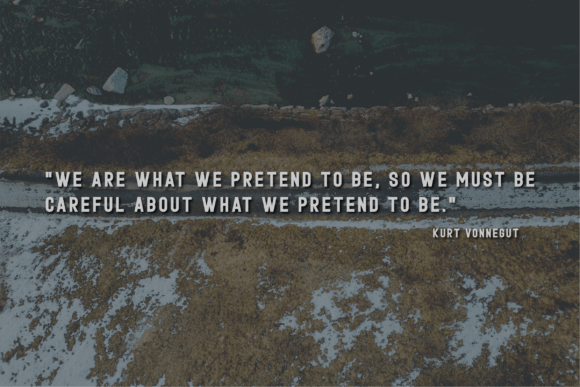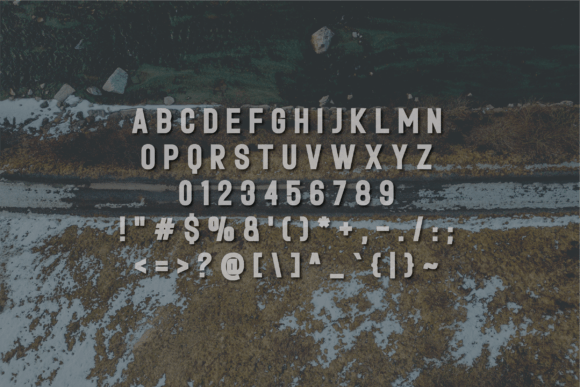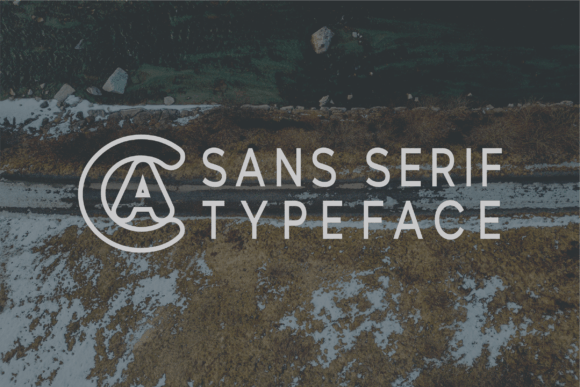
The Perfect Font for Your Masterpiece: Avengenz Font
Have you ever stared at a blank page, waiting for that spark of creativity to hit? You know, the moment when your ideas start flowing, and your vision begins to take shape? For many designers, that moment is the most thrilling part of the creative process.
| 👤 Author | A Christie |
That’s why we’re excited to introduce you to Avengenz Font, a stunning sans serif font that’s perfect for bringing your ideas to life. Whether you’re designing a logo, a wedding invitation, or a magazine spread, Avengenz Font is the perfect companion. Its versatility, modern style, and classy feel make it an invaluable tool for designers who want to create something truly special.
With Avengenz Font, you’ll be able to add a touch of sophistication and elegance to your designs, making them stand out from the crowd. Its value lies in its ability to elevate your ideas and make them shine, and that’s what makes it a must-have for any designer looking to take their work to the next level.
Key Features of Avengenz Font
- Size: The Avengenz Font family includes multiple weights, ranging from Thin to Black, allowing for a wide range of design applications.
- Resolution: The font is designed for high-resolution displays, making it ideal for use in digital media, such as websites, mobile apps, and print materials.
- Unique Characteristics: Avengenz Font features a distinctive, modern sans-serif design with clean lines, geometric shapes, and a bold, yet elegant feel.
Designer Review: Avengenz Font
First off, I want to say that I’m really impressed with the Avengenz font’s unique and edgy design ✨. The bold lines and geometric shapes give it a futuristic feel that’s perfect for modern branding and digital products. The font also has a great weight range, making it versatile for both headline and body text. Additionally, the font’s high contrast and legibility make it suitable for both on-screen and print use.
However, there are a few limitations to consider ⚠️:
- Avengenz font may be too harsh for certain designs, especially those that require a more subtle or elegant feel.
- The font’s bold lines may not be suitable for small text sizes, as they can become difficult to read.
- The font’s unique design may not be suitable for all audiences, particularly those who prefer more traditional or classic typography.
Overall, I think Avengenz font is a great addition to any designer’s toolkit, especially for those working on modern and tech-related projects. However, it’s essential to use it judiciously and consider the design context and audience before selecting this font.
Avengenz Font Practical Application Guide
The Avengenz font is ideal for use in logos, branding materials, and other high-impact designs where a bold and striking font is needed.
For maximum impact, use the Avengenz font in conjunction with bold colors and striking imagery.
Experiment with different font sizes and styles to create a unique and eye-catching effect.